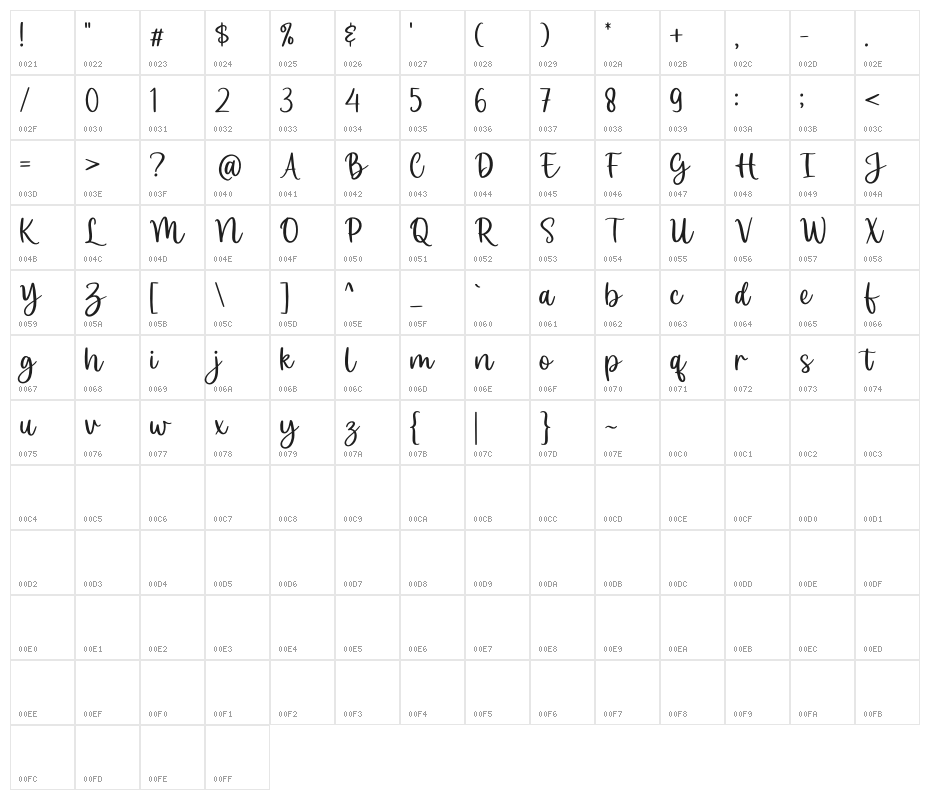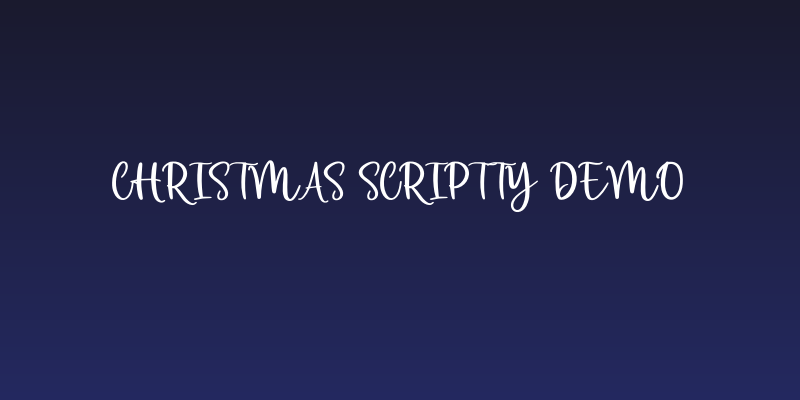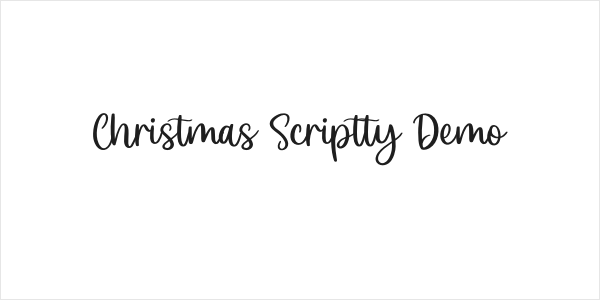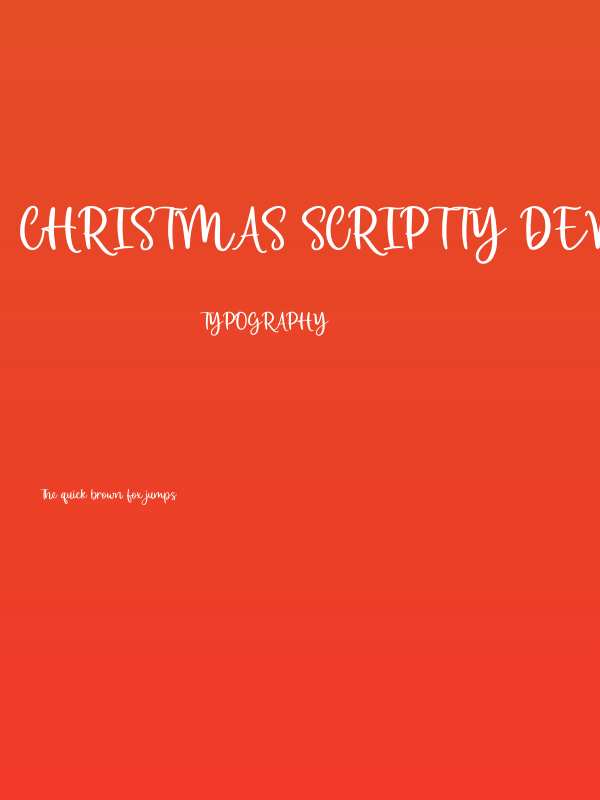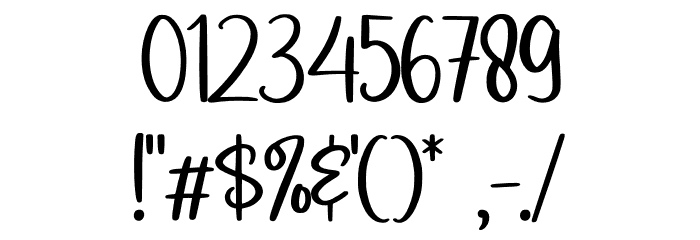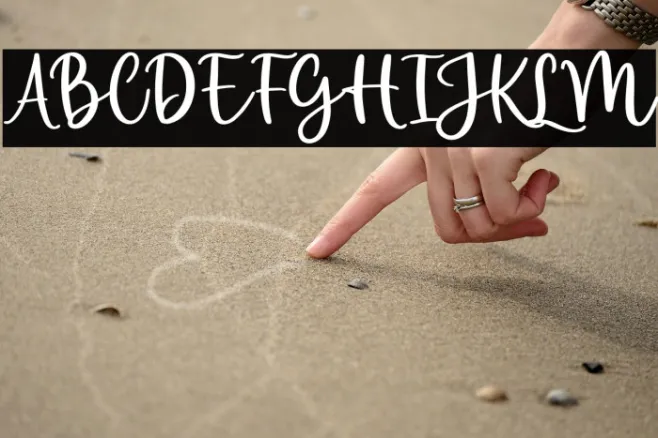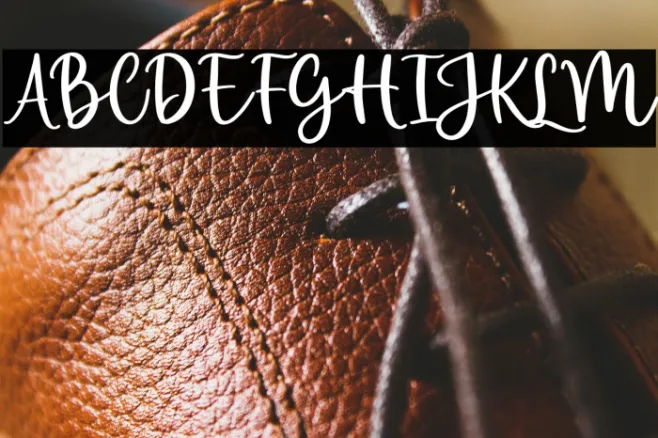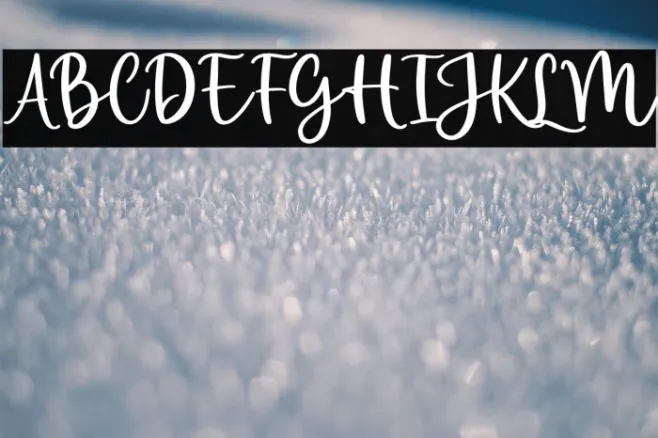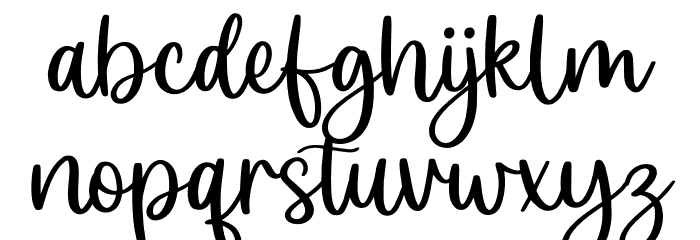
Christmas Scriptty Demo Font
Christmas Scriptty Demo Description
This font exudes a festive and playful charm, characterized by its flowing, cursive script style. The letters are elegantly connected, with a smooth and continuous stroke that gives a sense of movement and fluidity. The uppercase letters are slightly more ornate, with loops and swirls that add a touch of whimsy, while the lowercase letters maintain a consistent and harmonious flow. The numbers and special characters are crafted with the same attention to detail, ensuring a cohesive look across all elements. This font is perfect for creating a warm and inviting atmosphere, ideal for holiday-themed projects or any design that requires a touch of elegance and joy.